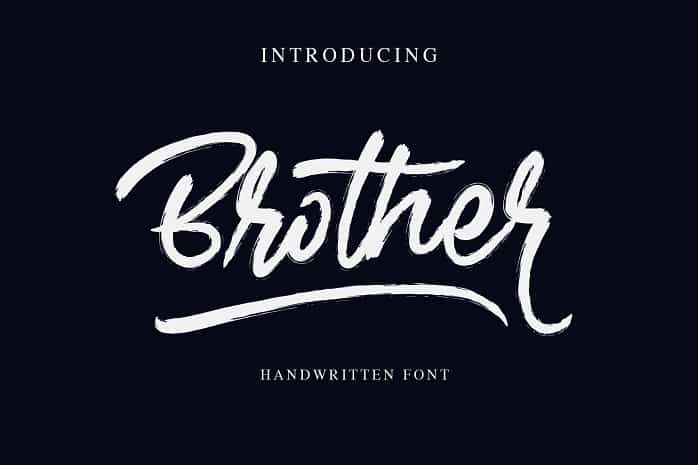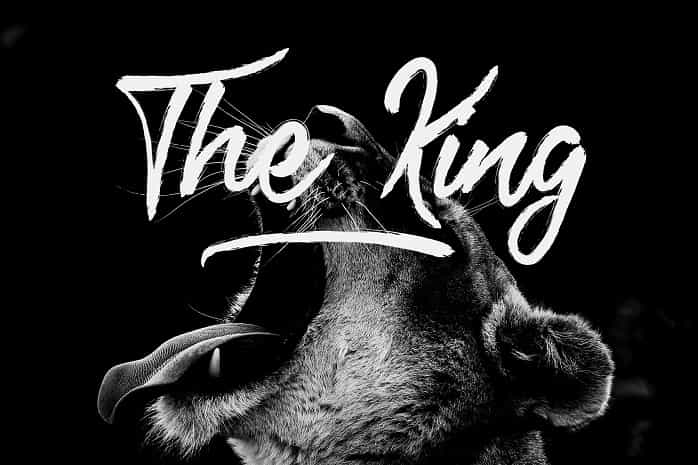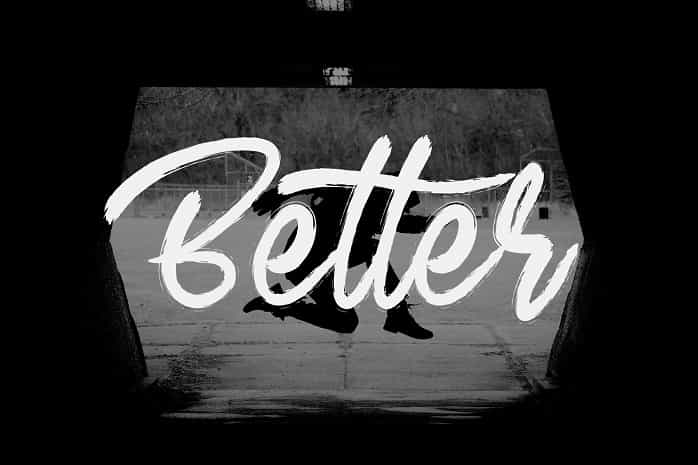
Discover Brother Brush Font, part of the Brush collection—a versatile and unique font perfect for adding a personal touch to your projects. Download it for free and enjoy crafting designs with style, from invitations to social media posts. This font is available exclusively for personal use, giving you the freedom to create without limits. Unlock your creativity with Brother Brush Font today!
Introducing Brother Font. Brother – Handwritten Font is a script font with a brush and fancy style, this font will be perfect for your next creative projects such as watermark on photography, album cover, business card, and many other design project. Brother font is now at your service to make you work possibly the best it can be.